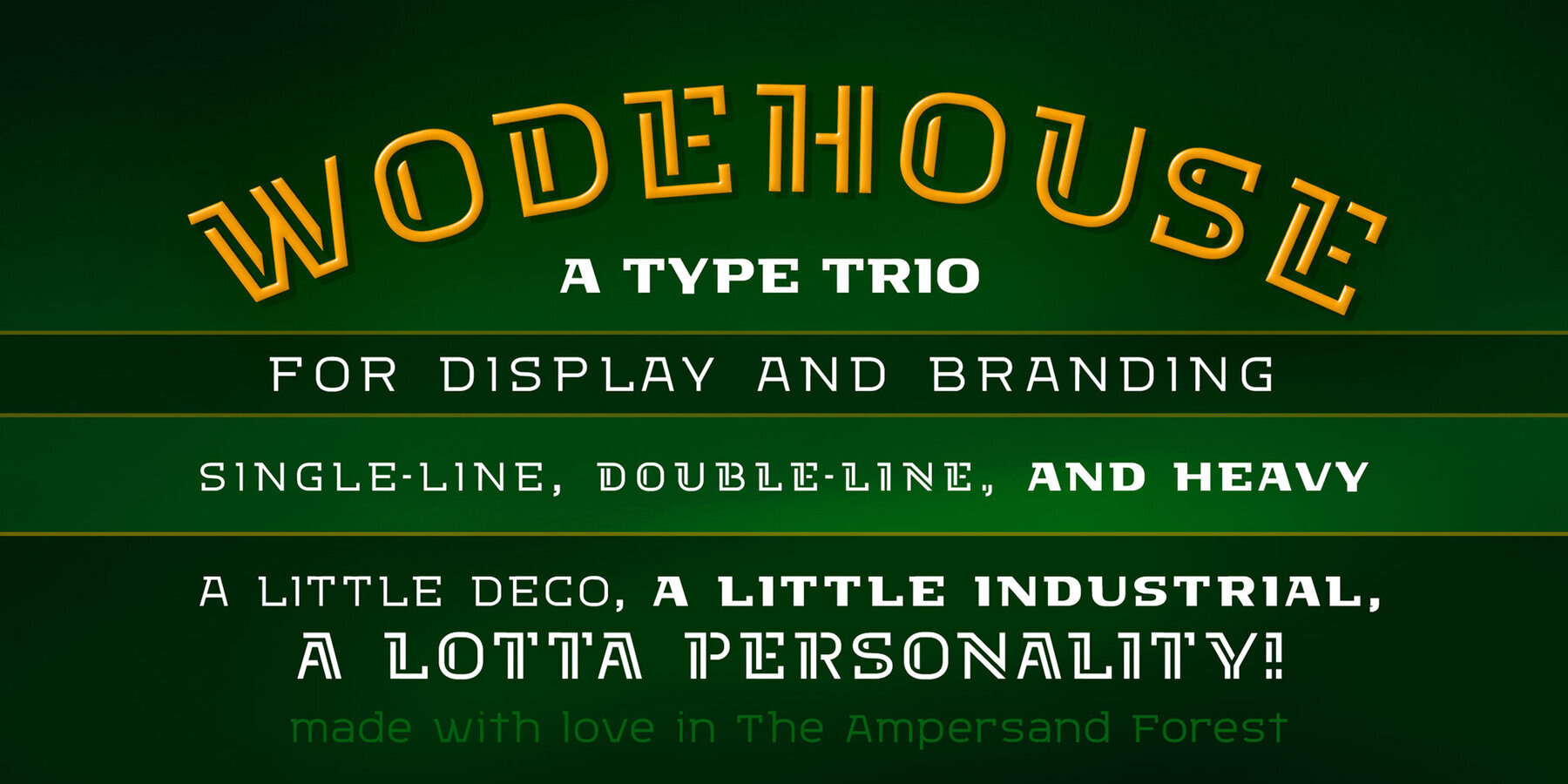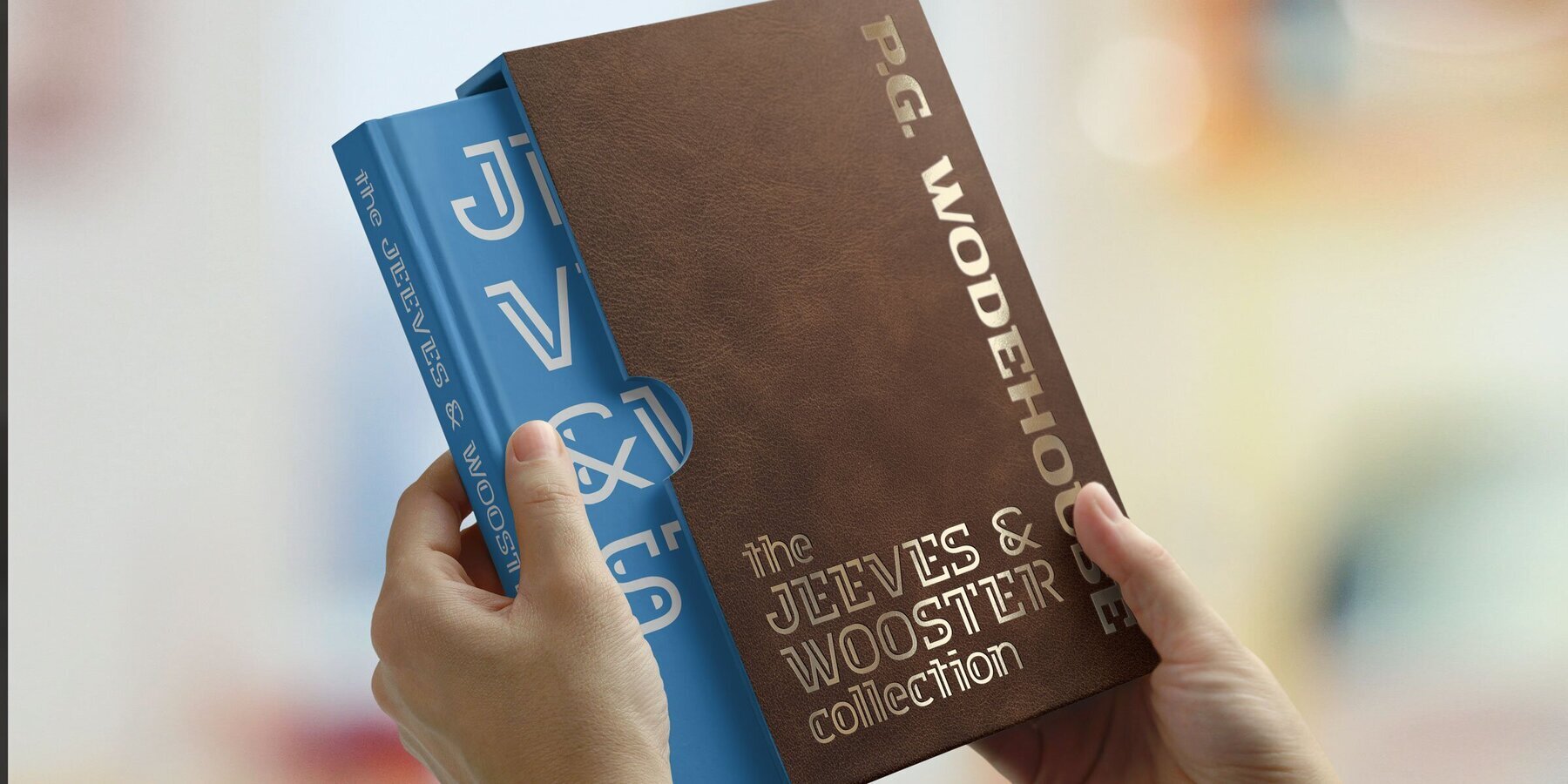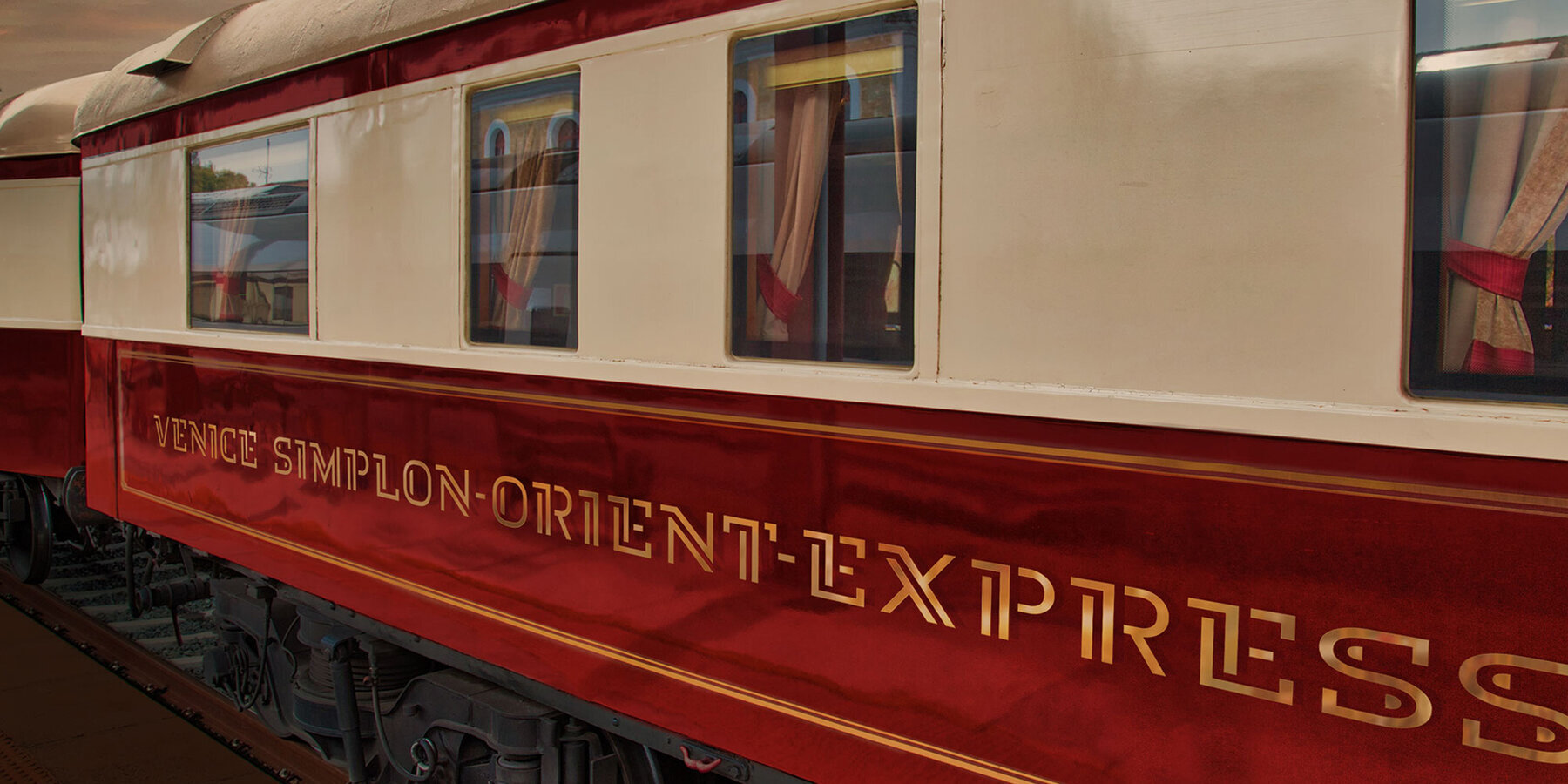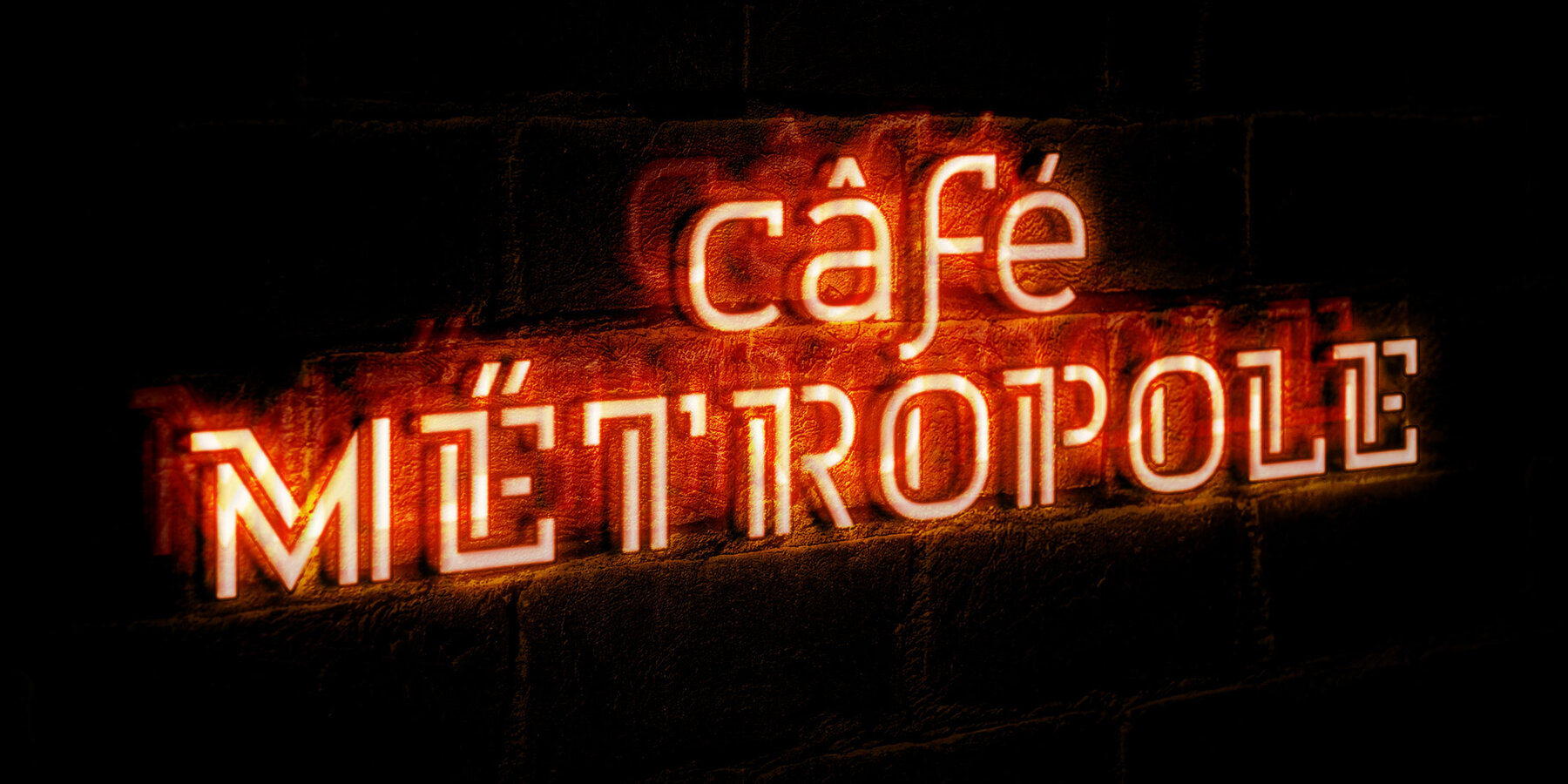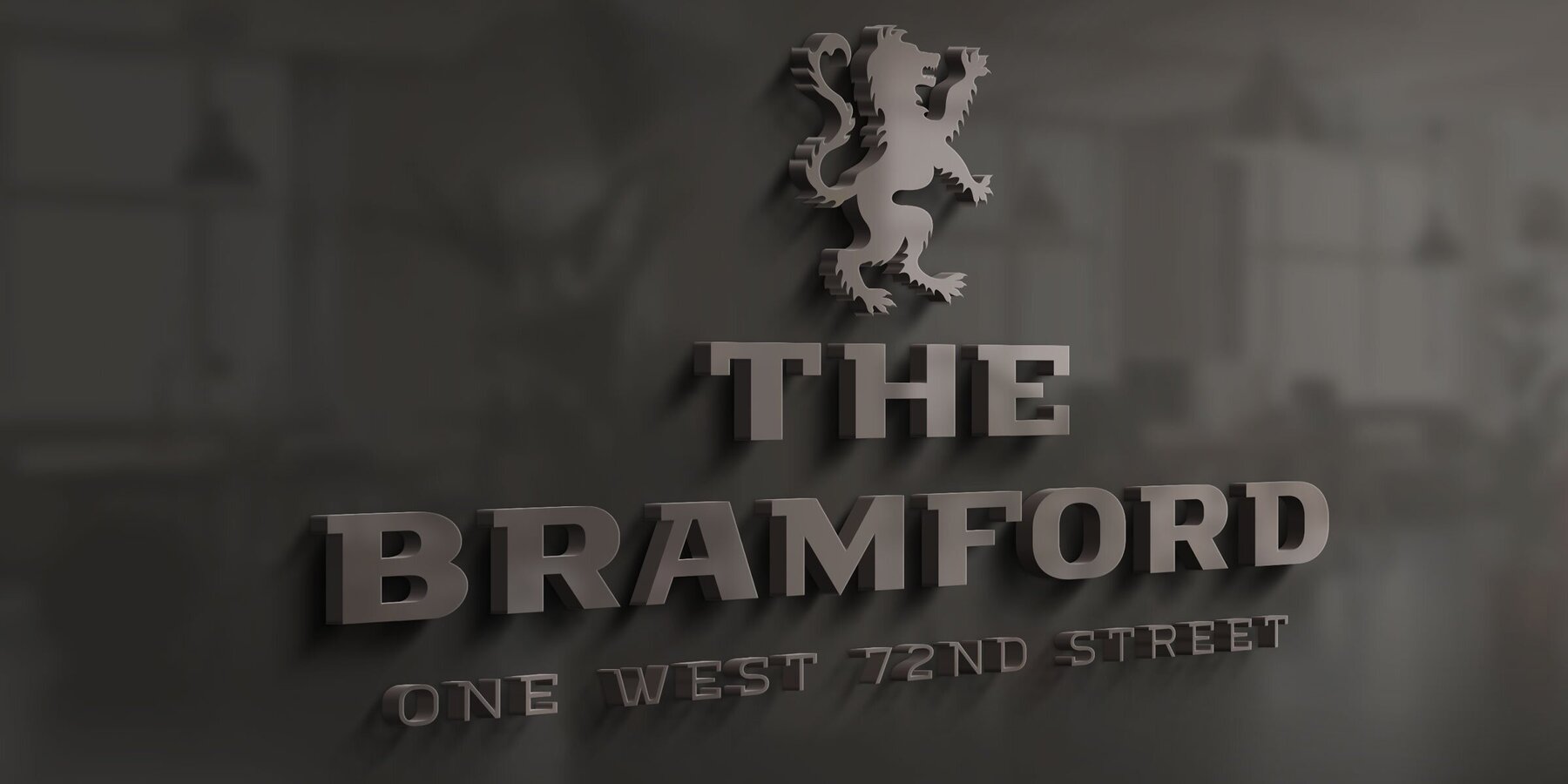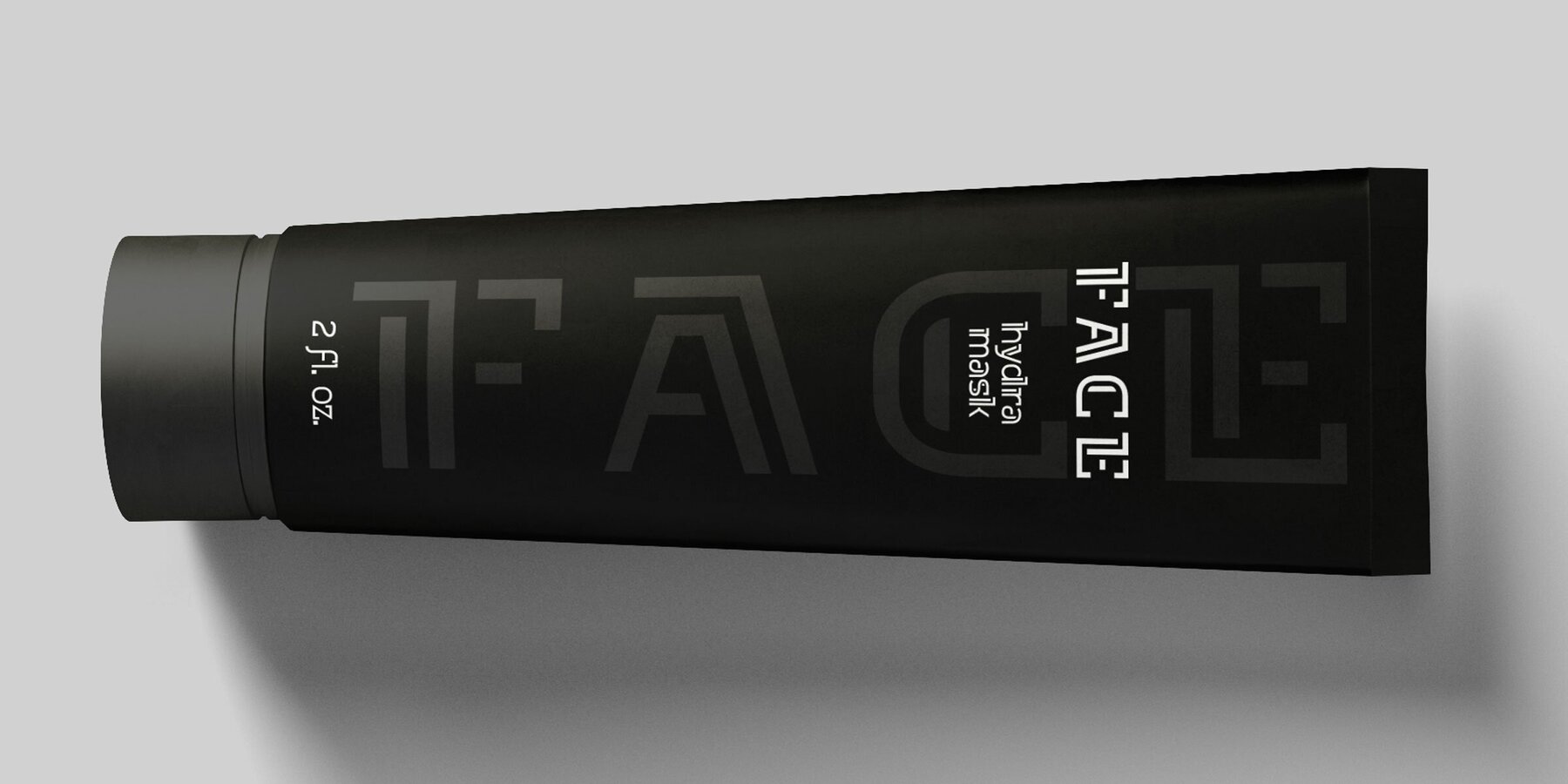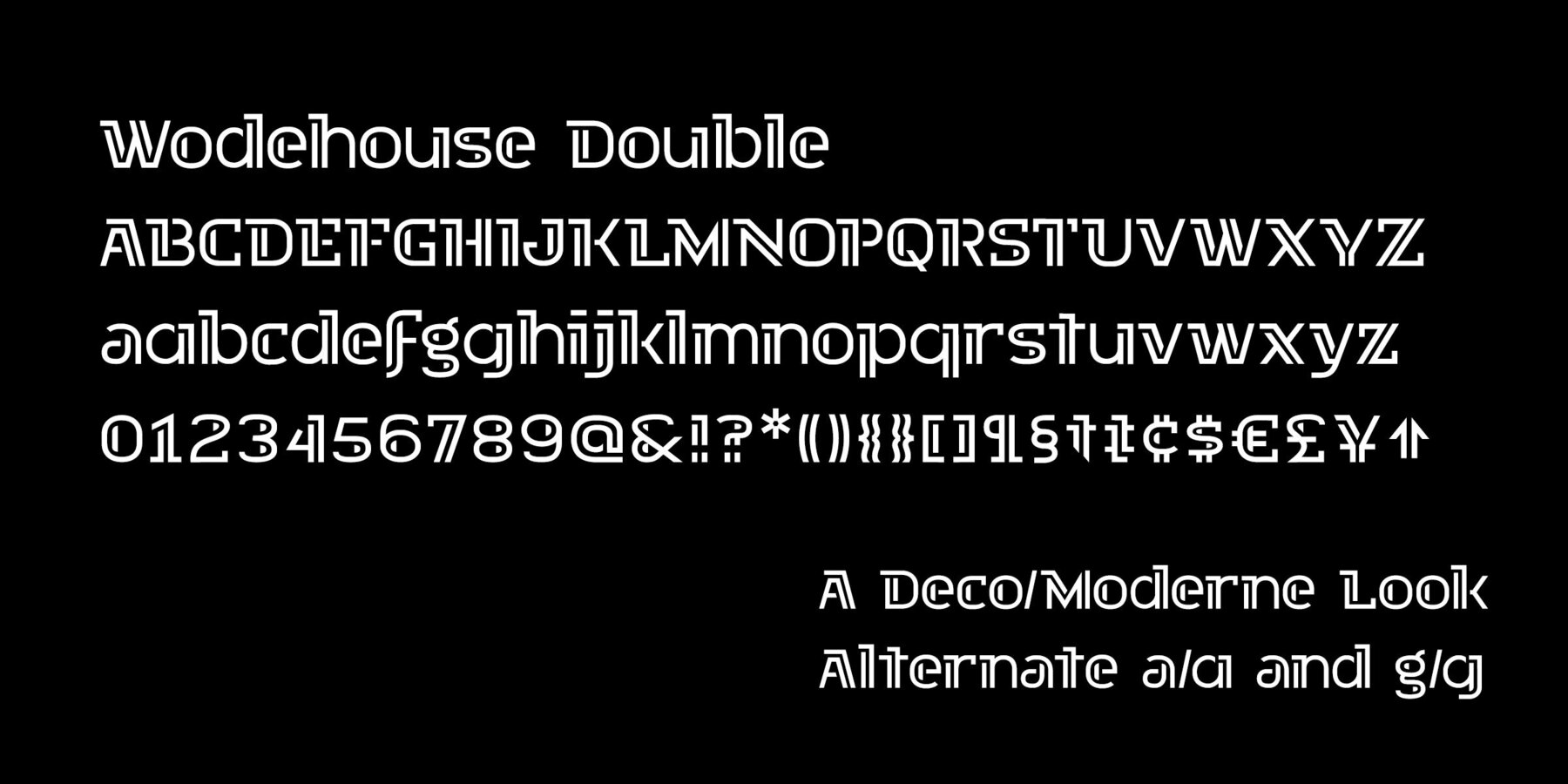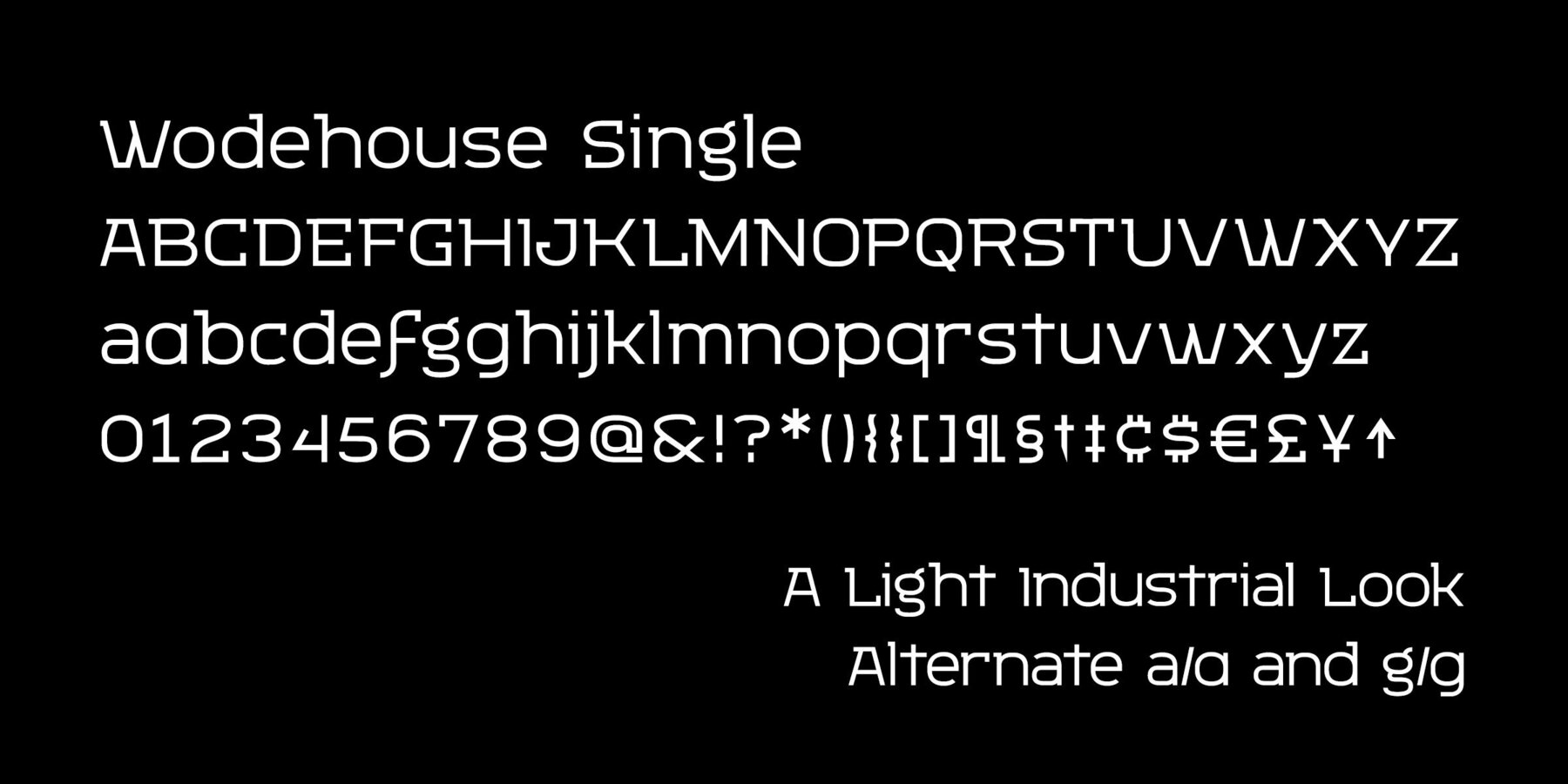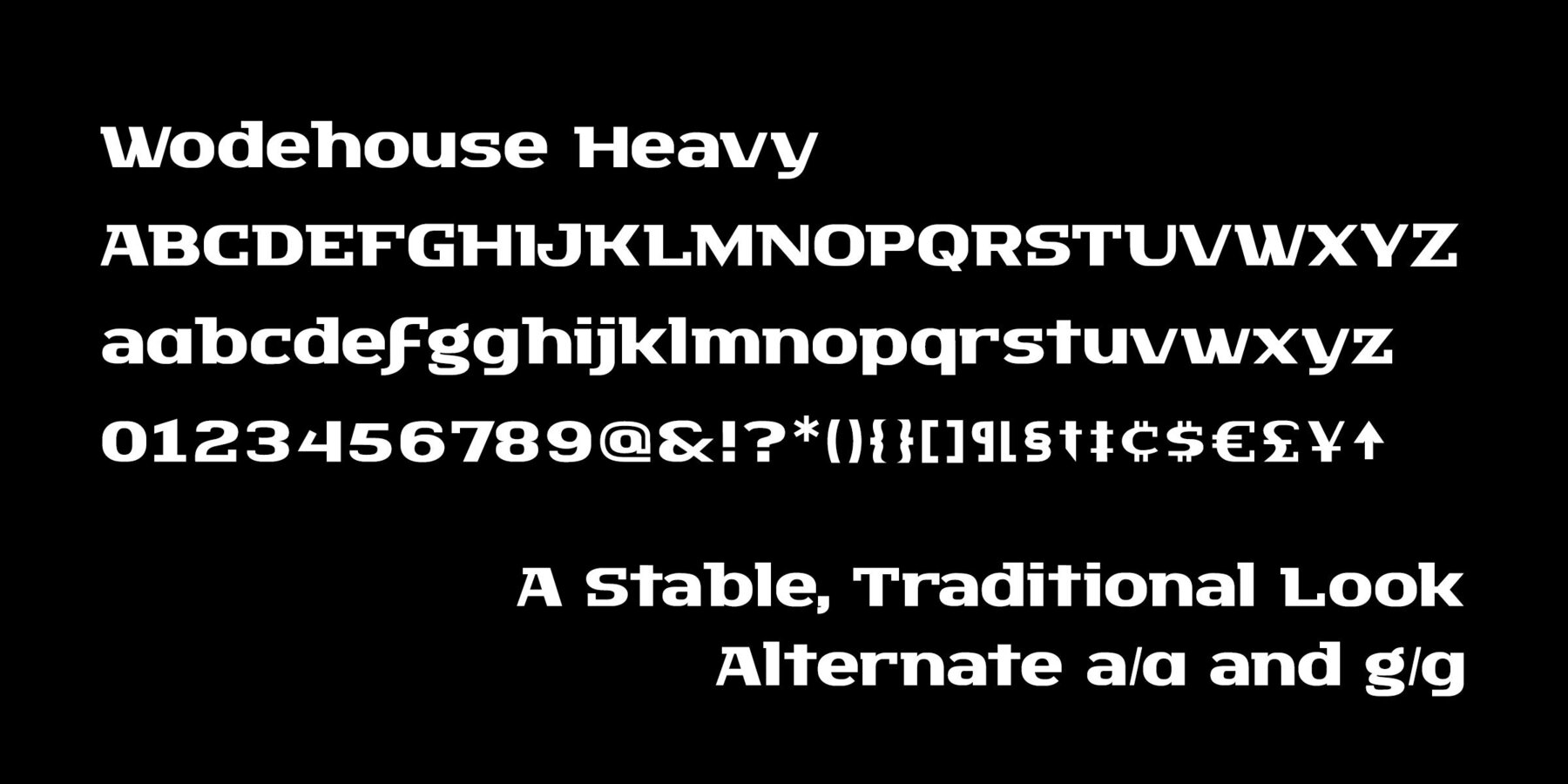
Wodehouse Font
Wodehouse Heavy
Wodehouse Double
Wodehouse Single
If you create a lot of designs for display, then you know how invaluable a good, solid, geometric face is. Wodehouse is here to deliver. It has both a vintage, between-the-wars look and feel and a geometry with super elliptical rounds that embrace later, more modular designs. It's a little Deco, a little Moderne, a little Industrial and a lotta personality.
Named for the creator of the iconic “Jeeves & Wooster” books, Wodehouse has style. Wodehouse stands out. Right ho, Woodhouse!